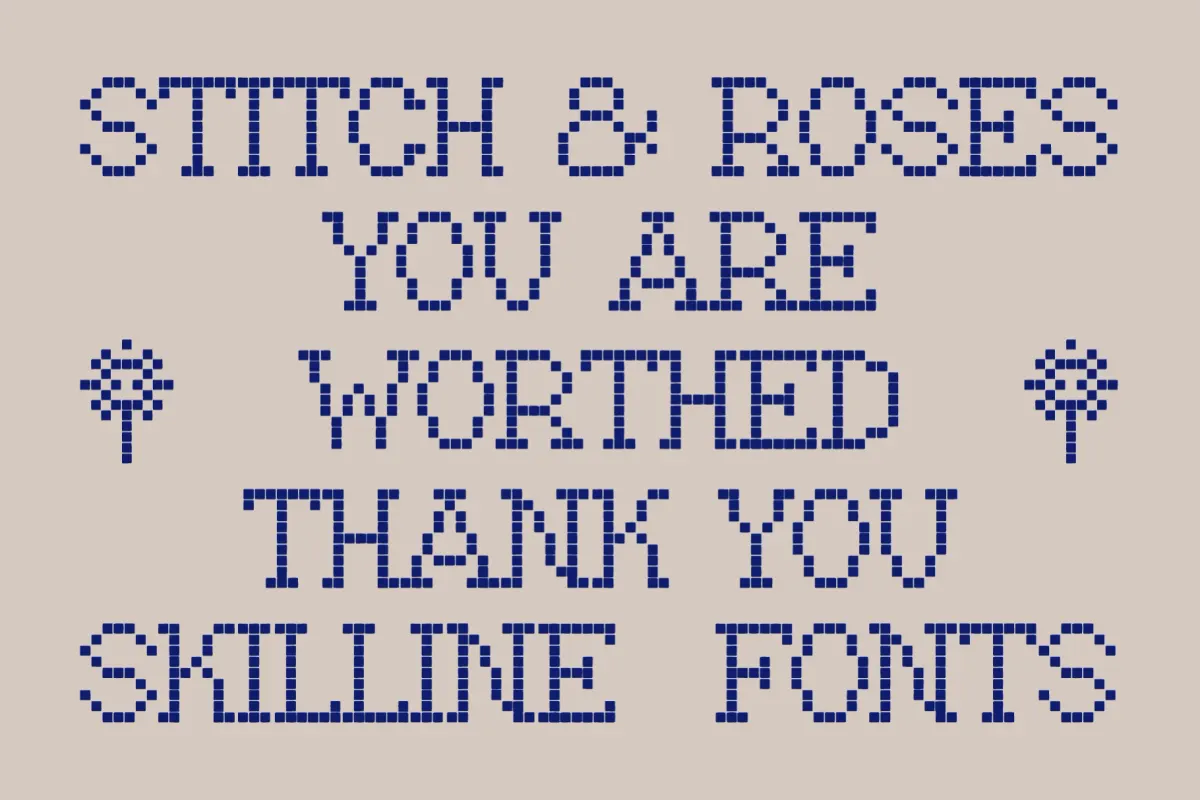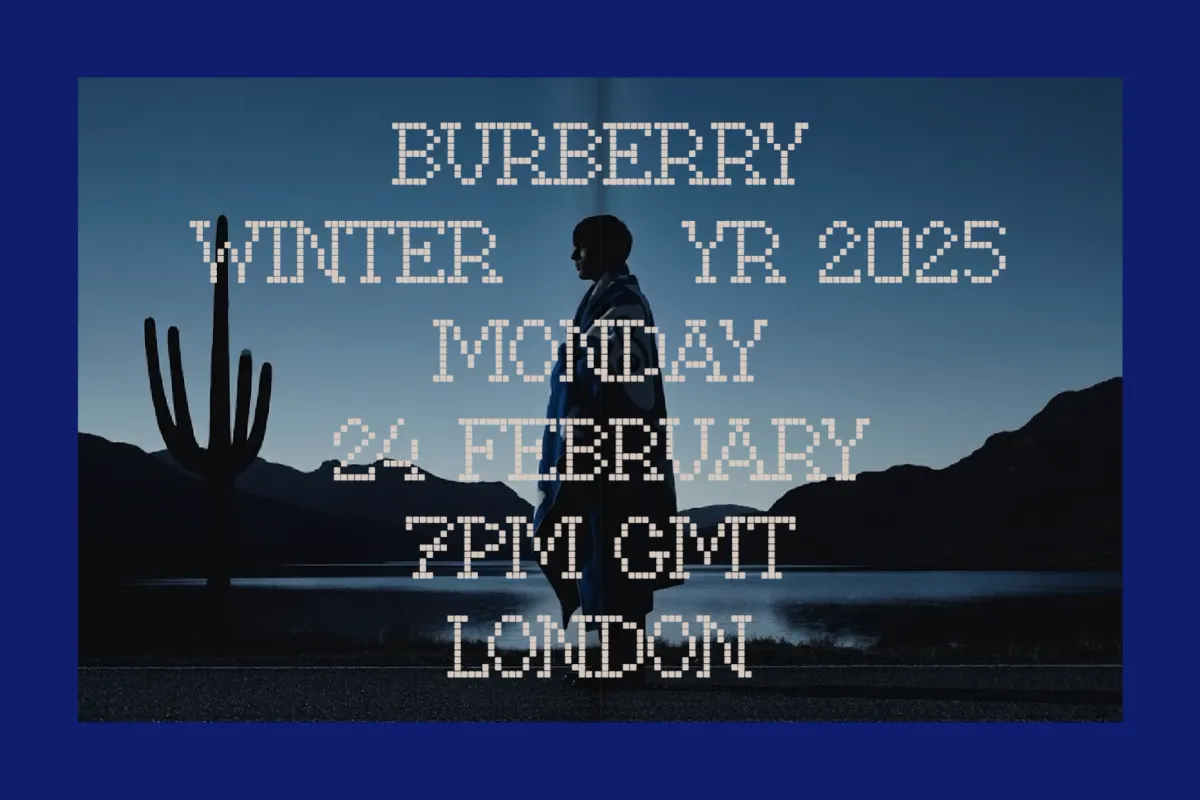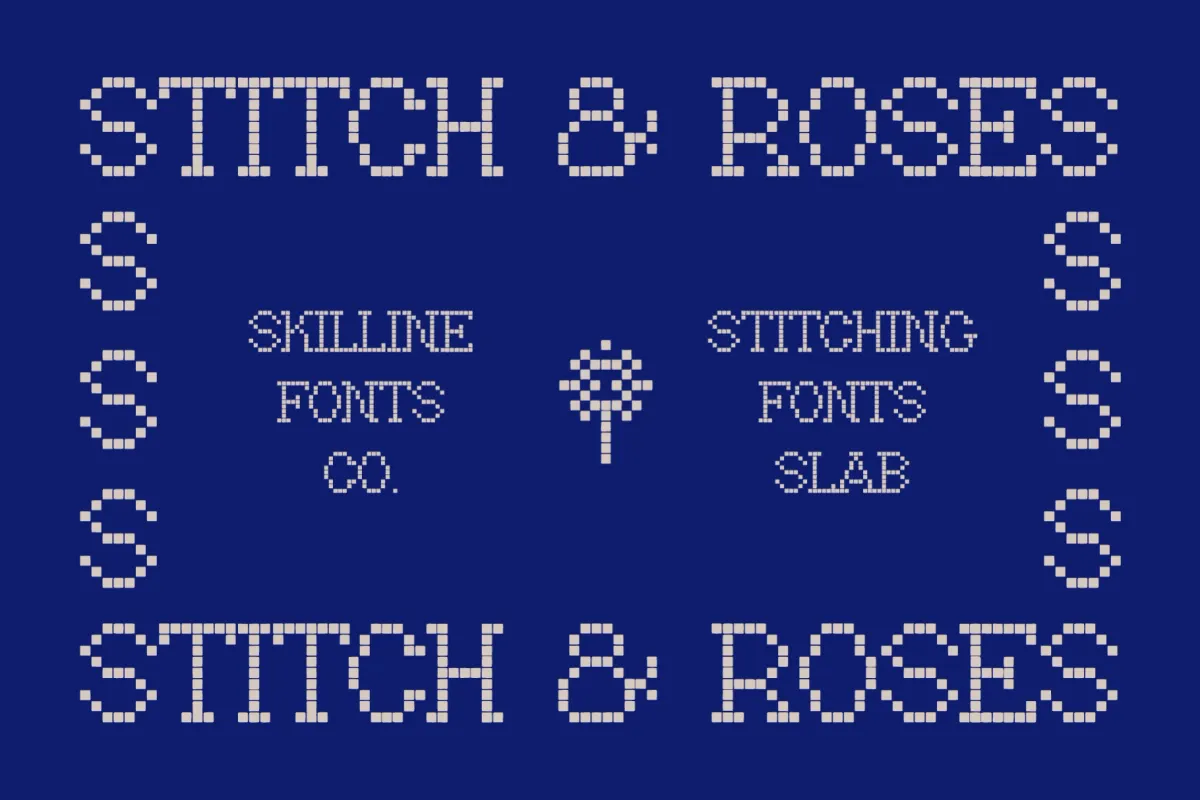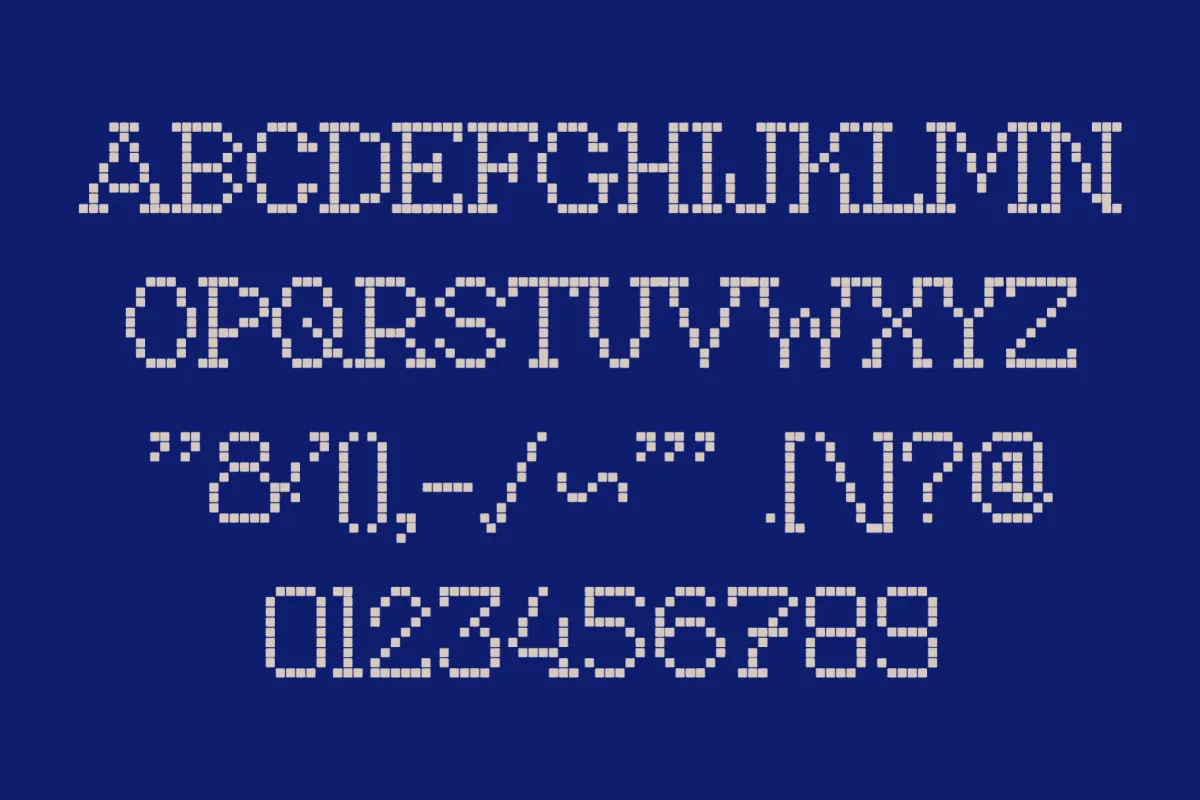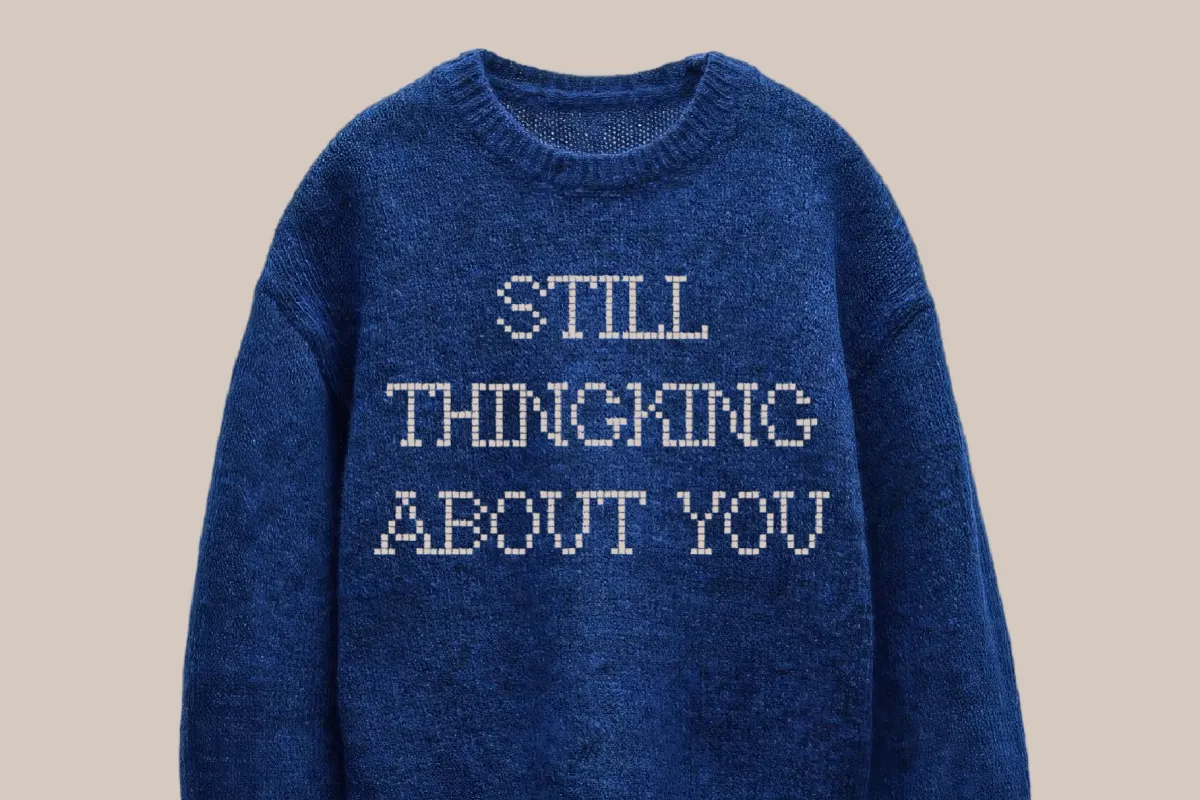
Stitch & Roses - Cross-Stitch Pixel Font
Stitch & Roses pulls straight from embroidery hoops and cross-stitch samplers, rebuilding every letter out of small square stitches locked into a tight grid. The result is a cross-stitch pixel font where each character reads like it was worked thread by thread, with uniform spacing and clean alignment holding the whole set together.
Its blocky slab construction keeps the letterforms sturdy even at small sizes, so the stitched texture holds up on fine print as well as on bigger display type. Use it for packaging labels, craft and embroidery branding, knitwear prints, tote bags and merch tags, wedding stationery and save-the-date cards, and social announcement posts.